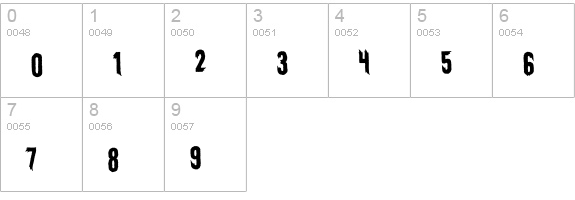
ElderGods BB Font Details
ElderGods BB font is a stunning display typeface that exudes an ancient and mystical aura. With its intricate designs and otherworldly feel, this font is perfect for projects that require a touch of the supernatural or the divine. The delicate curves and sharp angles of ElderGods BB font create a captivating visual experience that will draw in viewers and leave a lasting impression. Best of all, ElderGods BB font is available for free download at FontsMarket.com. This means you can easily add this unique and enchanting font to your collection without any cost. Whether you're working on a fantasy novel, a game design, or any other creative project, ElderGods BB font is sure to elevate your work and bring a touch of magic to your designs. Download it today and unlock the power of this captivating typeface.